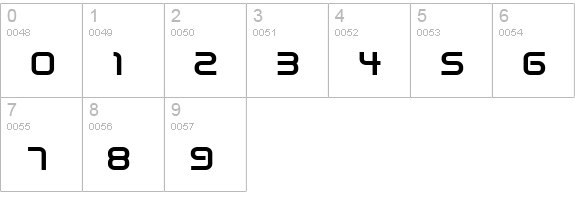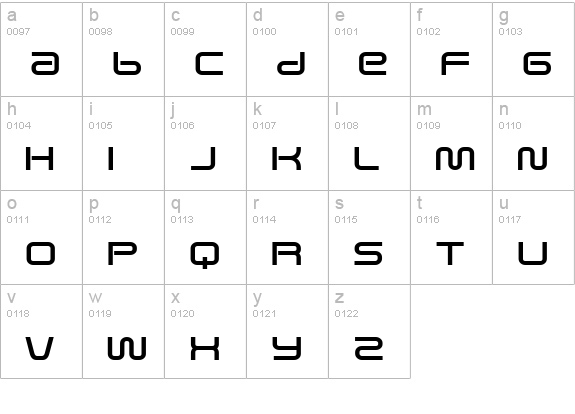
Saved By Zero Font Details
Saved By Zero font is a stunning display font that exudes modernity and elegance. With its clean lines and unique letterforms, this font is sure to make a bold statement in any design project. Whether you're creating a logo, a poster, or a website, Saved By Zero font will add a touch of sophistication and style. What sets this font apart is not only its exceptional design, but also the fact that it is available for free! Yes, you heard that right. Saved By Zero font can be downloaded for free at FontsMarket.com. This means that you can enjoy its beauty and versatility without spending a single penny. With Saved By Zero font, you have the opportunity to elevate your designs to the next level. Its sleek and contemporary look will catch the eye of your audience and leave a lasting impression. The versatility of this font allows it to be used in a wide range of projects, from branding and advertising to editorial design and beyond. The characters of Saved By Zero font are carefully crafted to ensure legibility and readability, making it perfect for both digital and print media. Its clean and crisp lines ensure that every letter is clearly defined, making it easy to read even at smaller sizes. So why wait? Don't miss out on this amazing opportunity to enhance your design projects with the stunning Saved By Zero font. Download it for free at FontsMarket.com and start creating eye-catching designs that will leave a lasting impact.